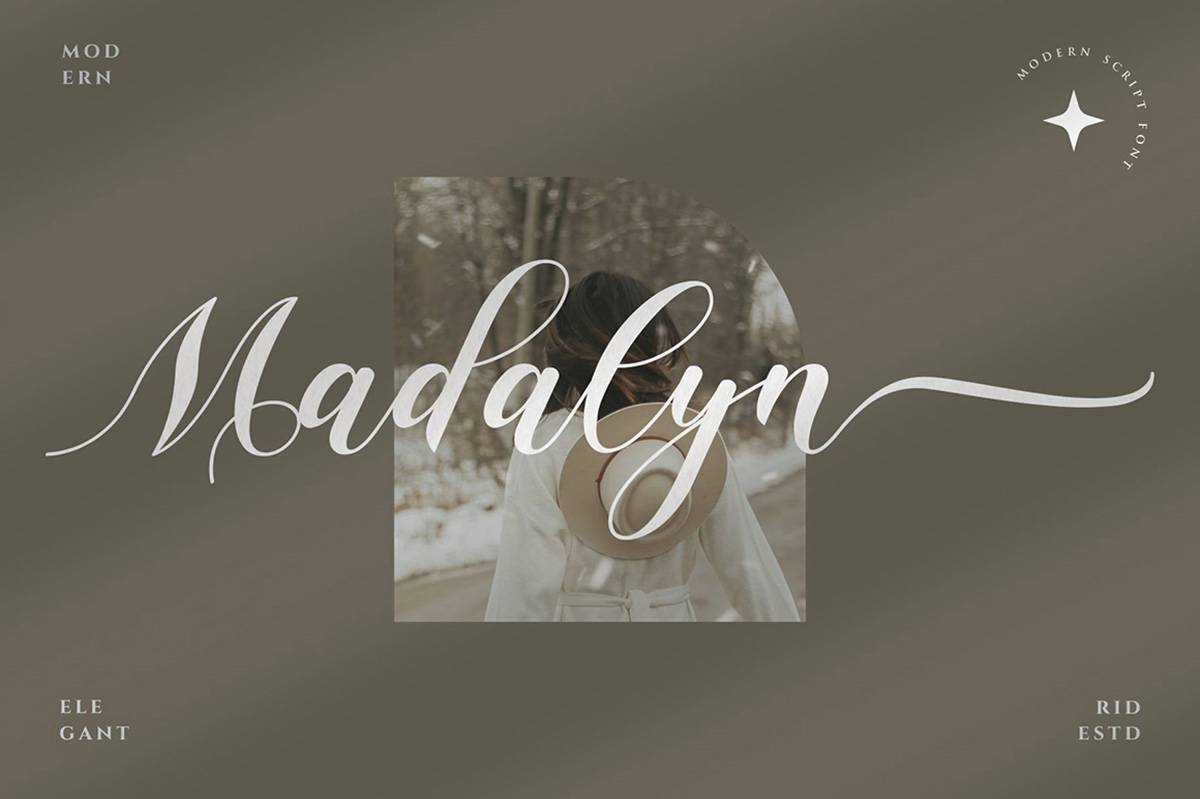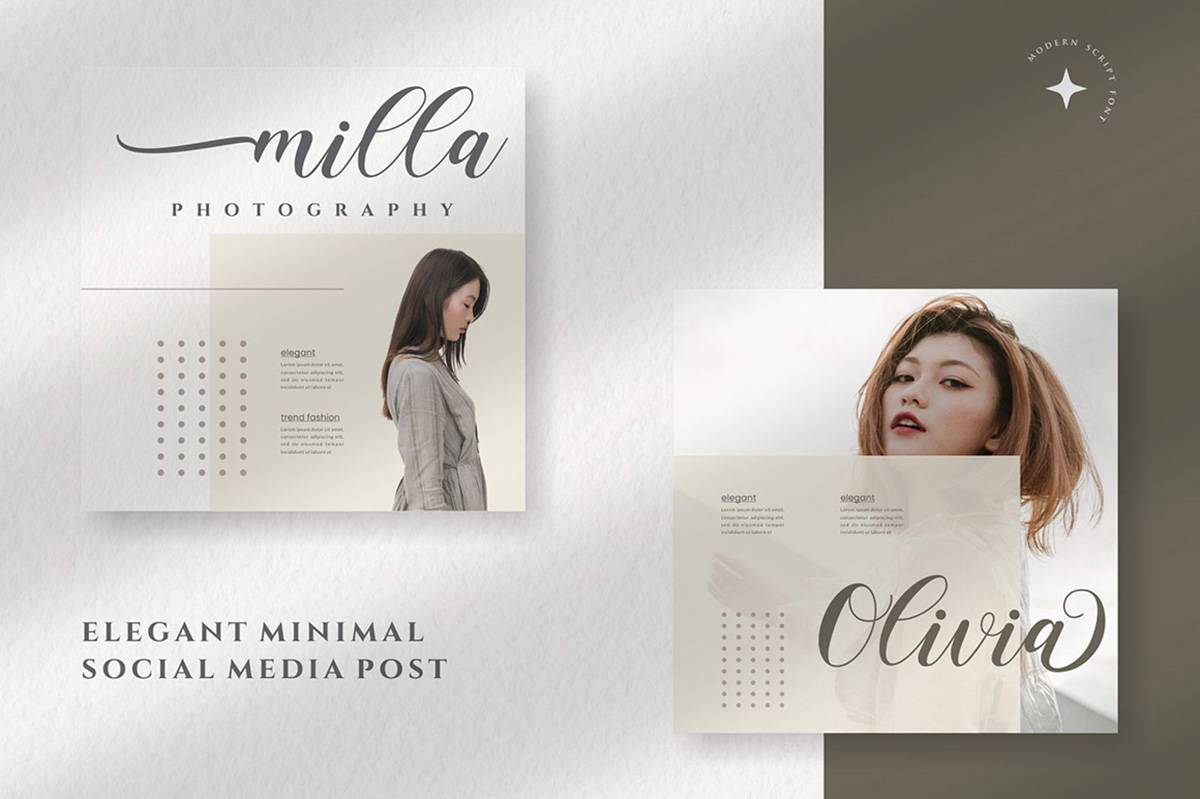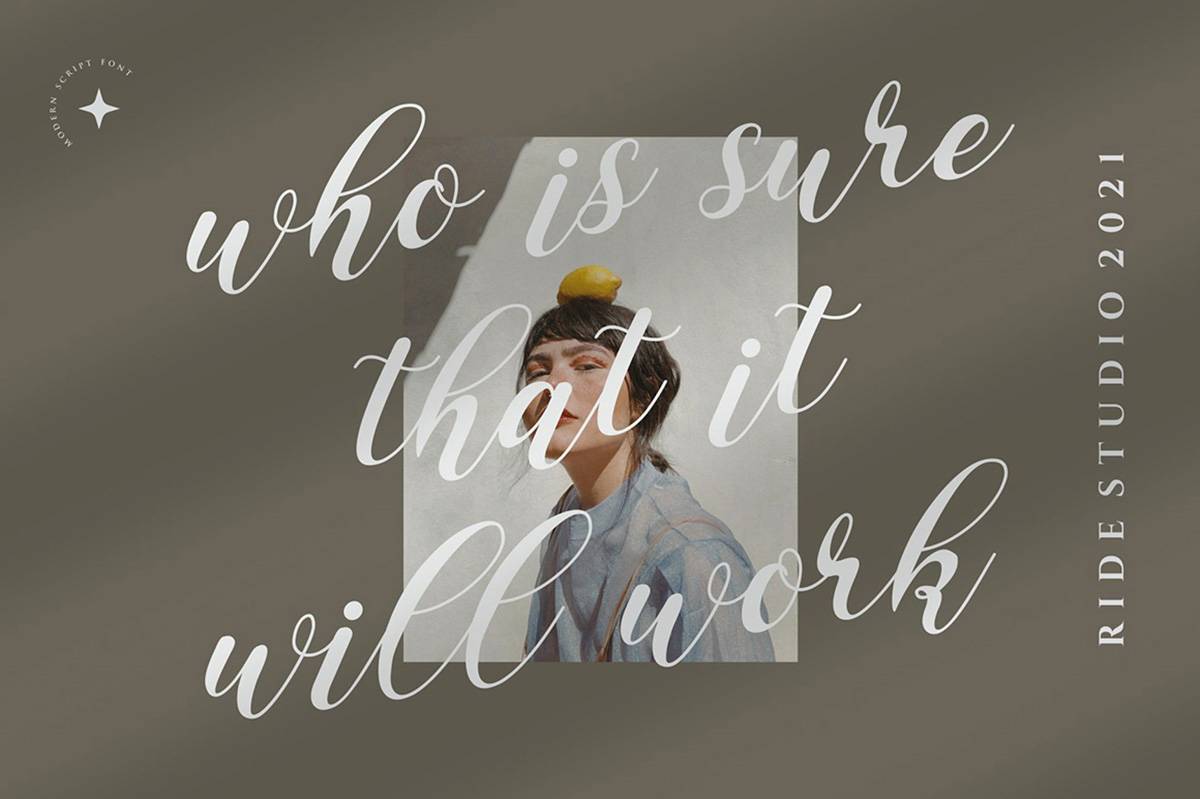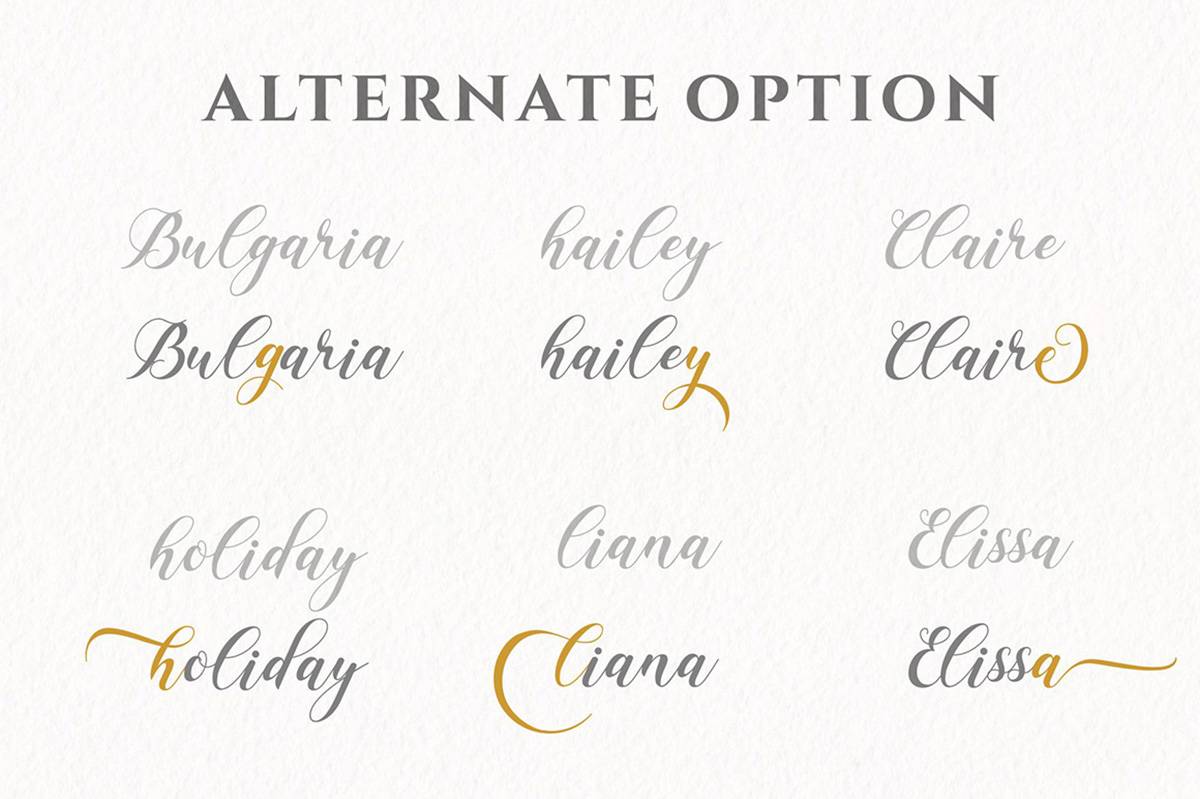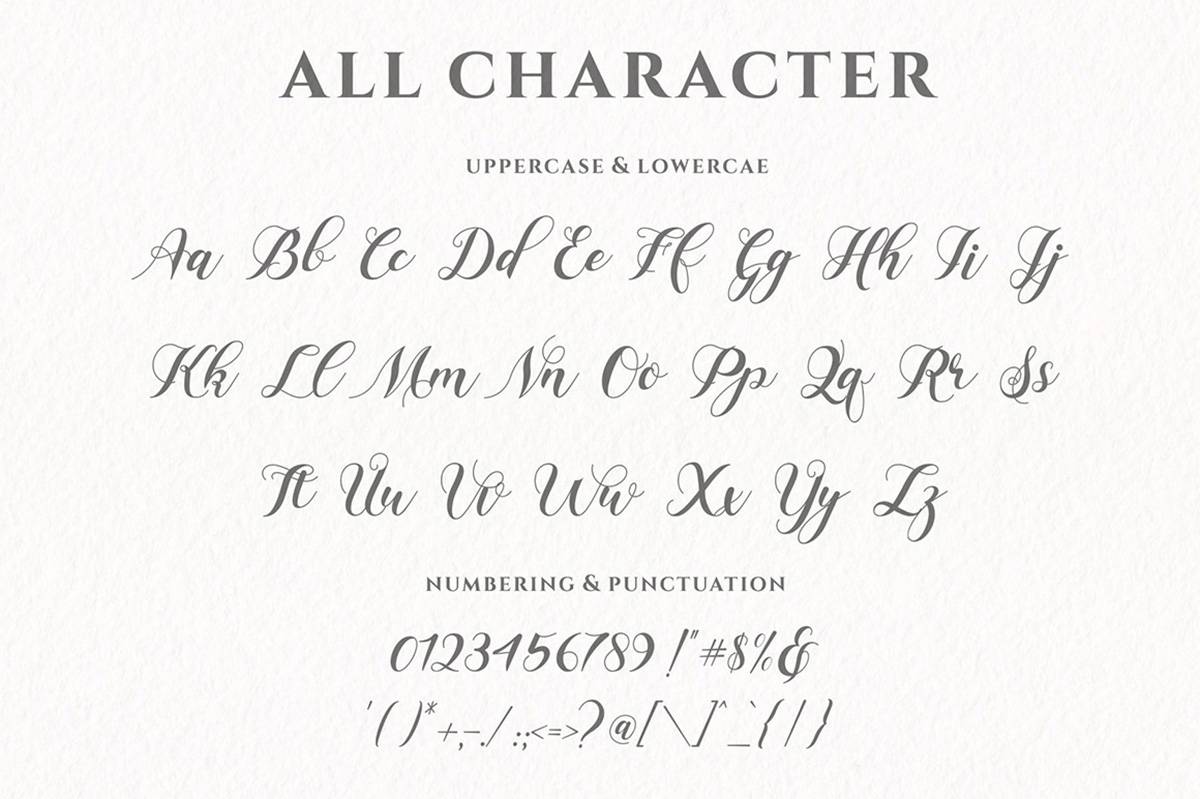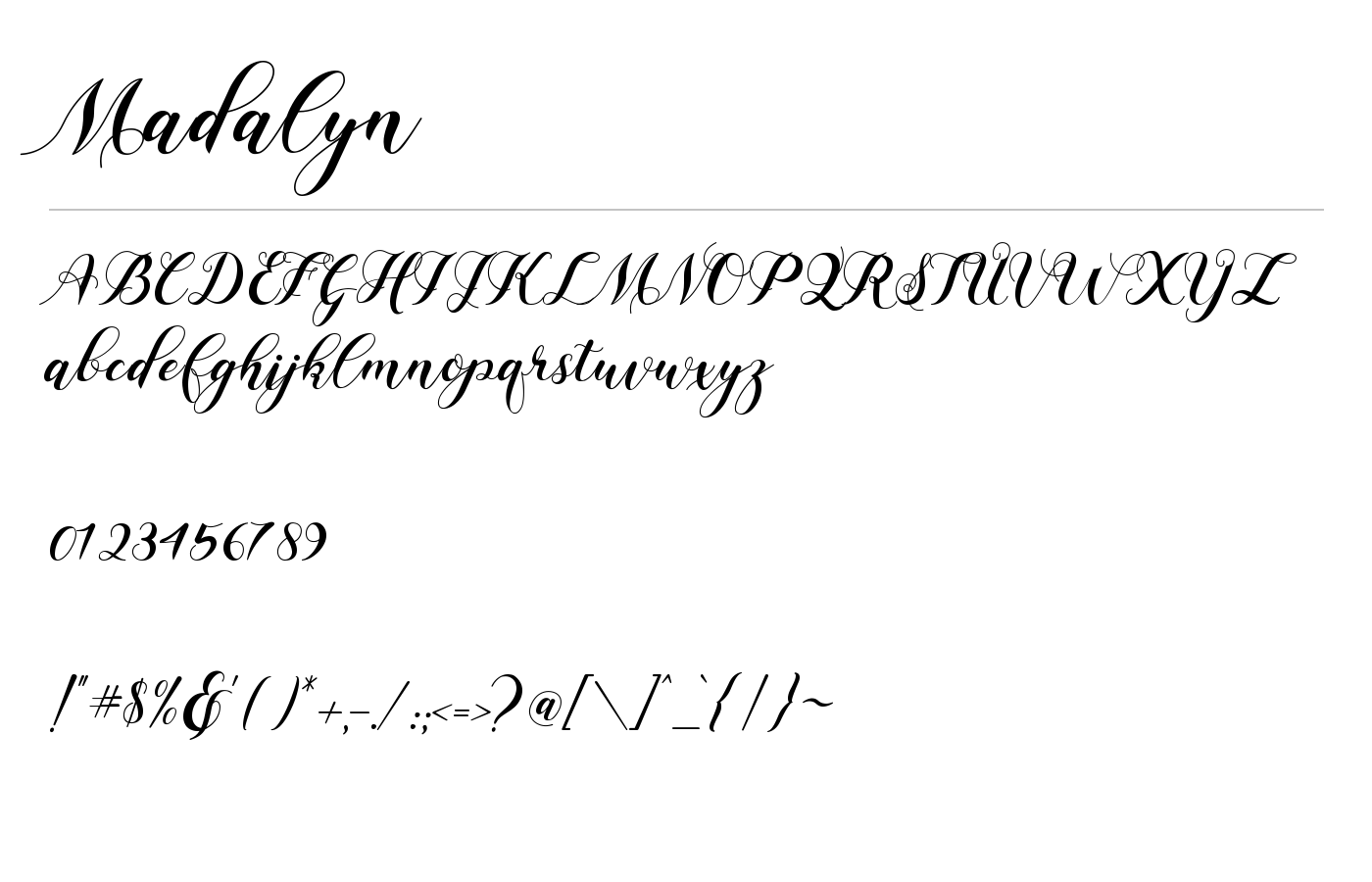
Madalyn is an elegant script font characterized by its flowing, calligraphic strokes and fine contrasts between thick and thin lines, evoking a graceful and sophisticated feel. Its delicate, cursive letterforms with stylish swashes make it ideal for luxury branding, wedding invitations, and high-end editorial design where a touch of refinement and romance is desired. This font shines in headlines and decorative uses, adding a personal and elegant flair to any project.
Madalyn Font
About Madalyn Font
| Font family | Madalyn Font |
| Designer | Ride Studio 2021 |